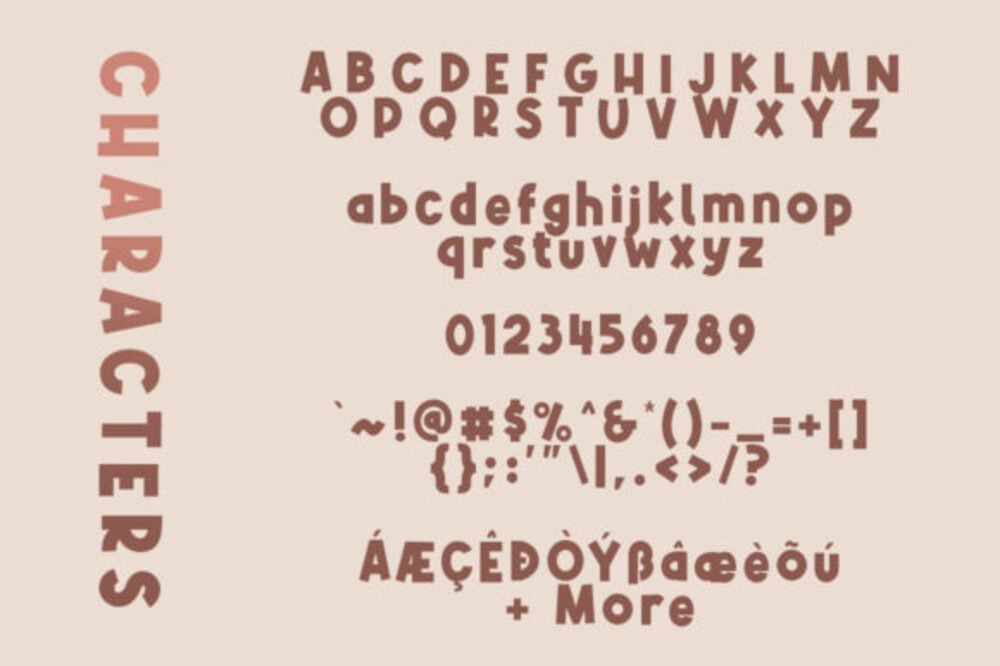
Alphakind Font
Alphakind is a bold, futuristic sans-serif font designed to captivate and inspire. Featuring sleek, geometric shapes with sharp edges and clean lines, it’s ideal for tech branding, modern logos, and digital projects. Its versatile style combines elegance with innovation, making it perfect for headlines, posters, and UI/UX design. Alphakind seamlessly balances minimalism with a cutting-edge aesthetic.